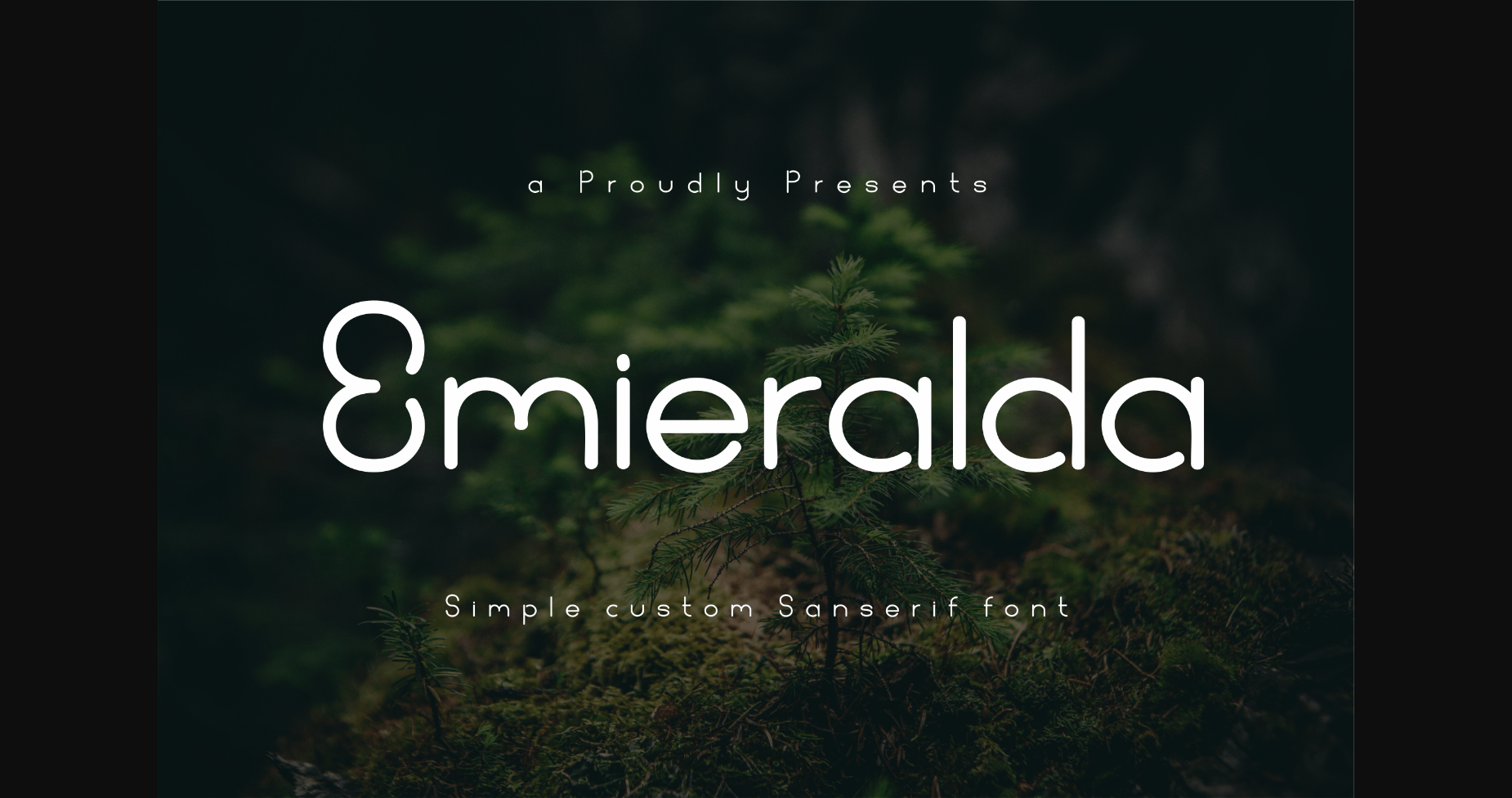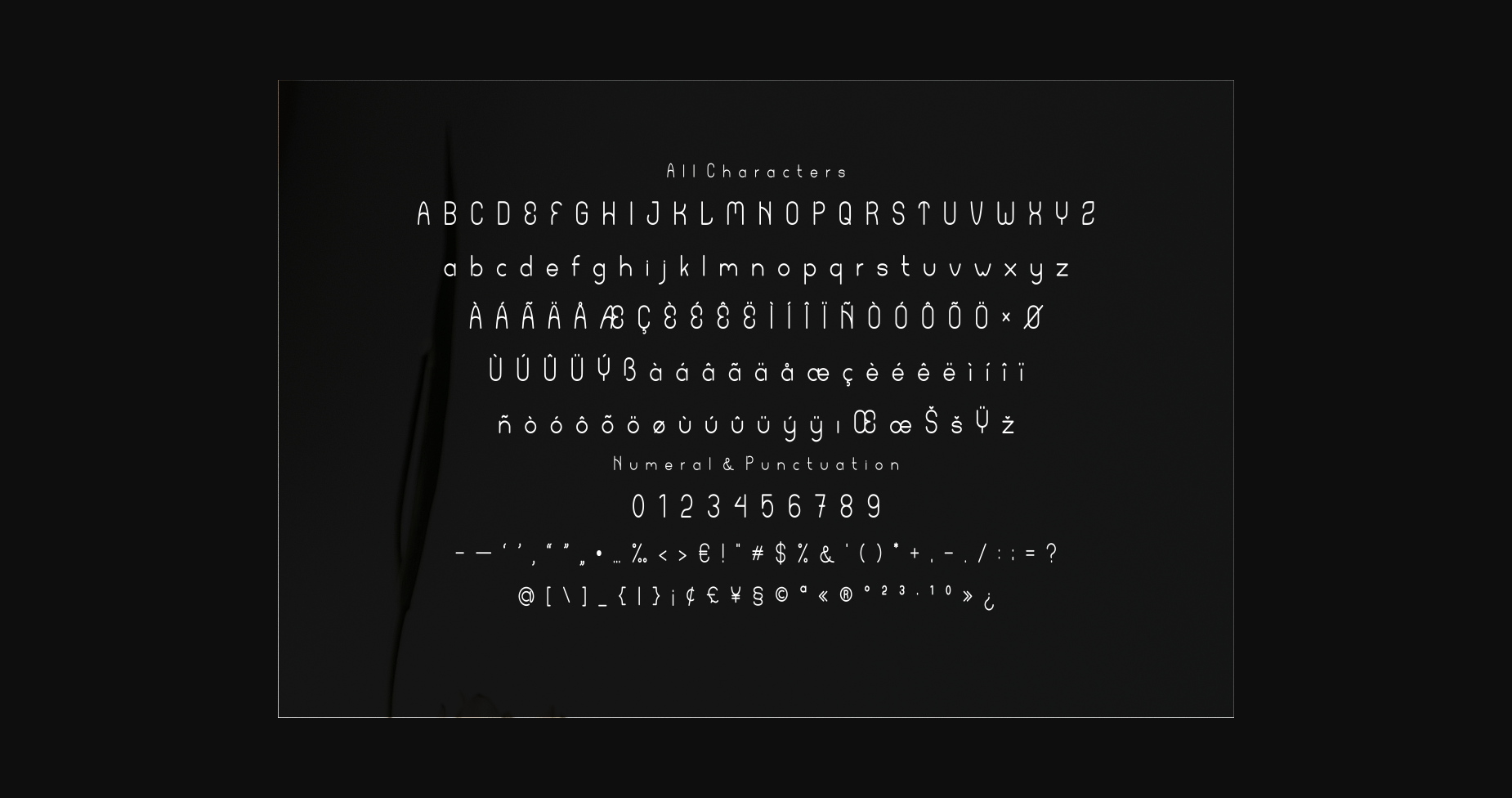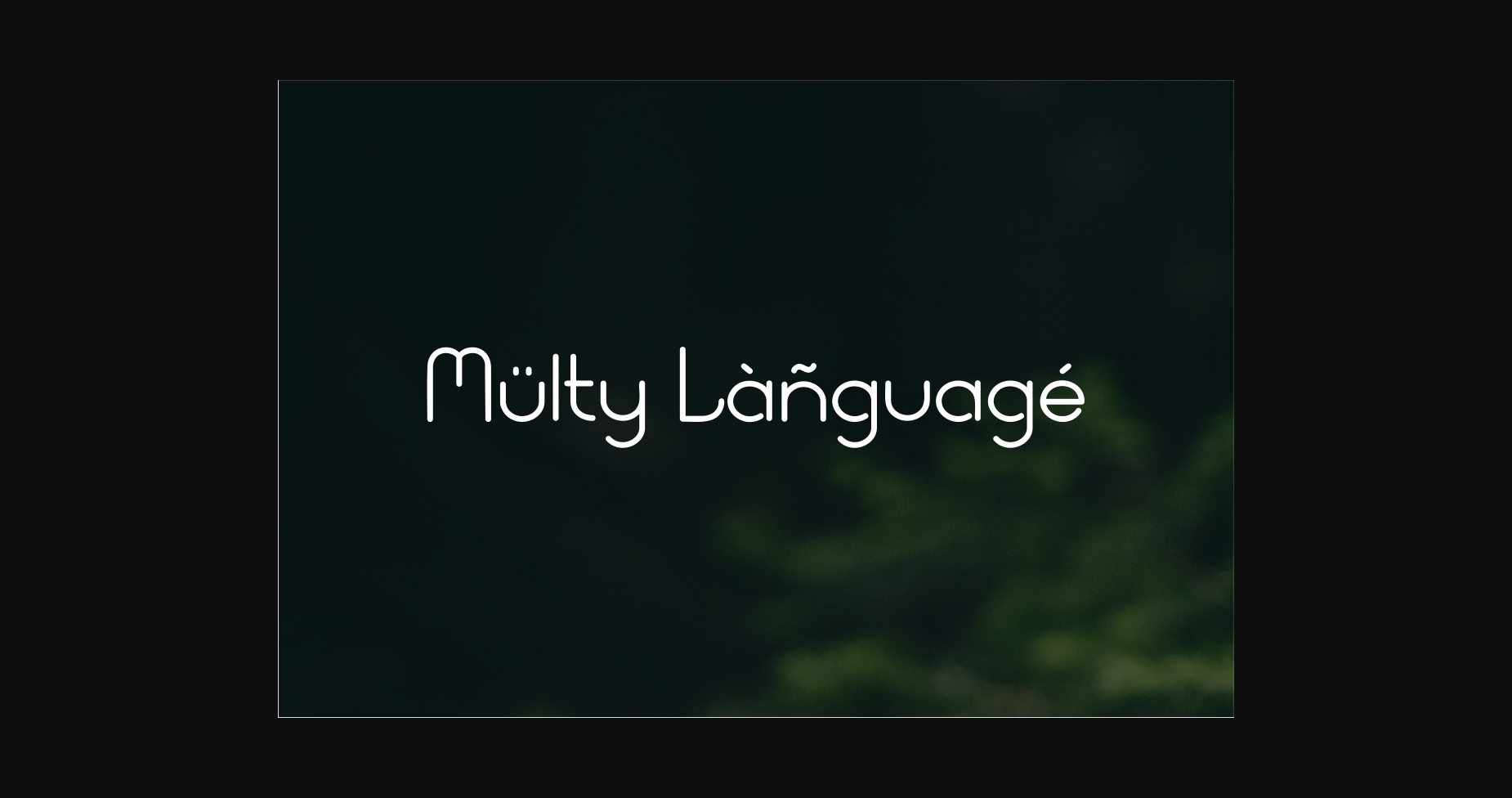
About Emieralda Font
Emieralda Font It has an elegant, classy look and is modern. It’s a great font for fashion, apparel projects, signature, album covers, logo, branding, magazine, social media, & advertisements, but also works great for other projects.